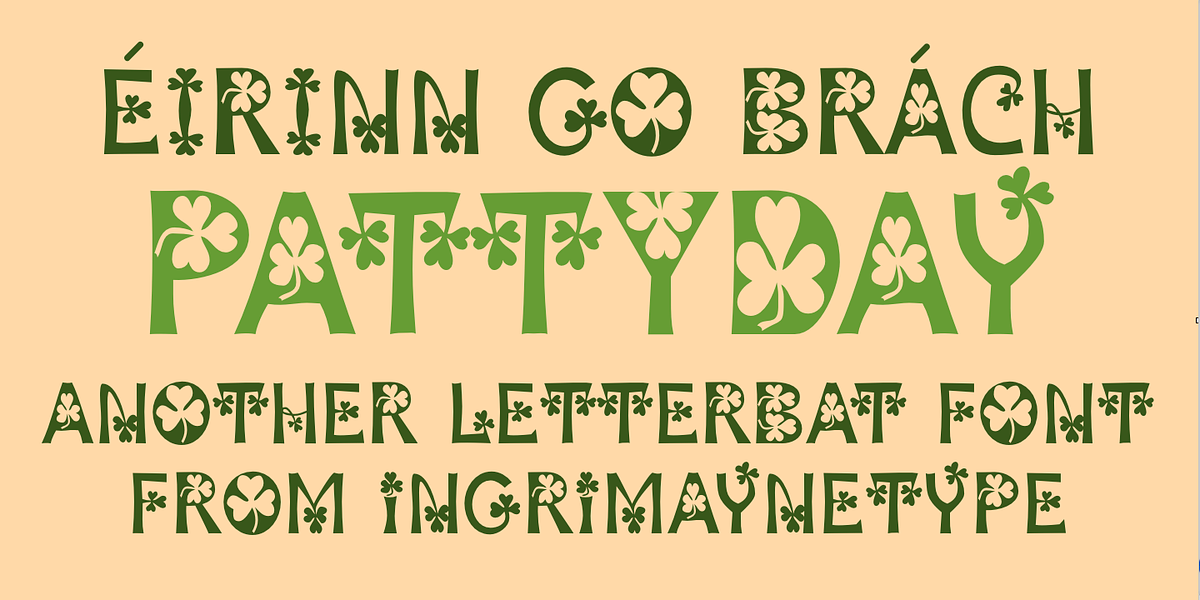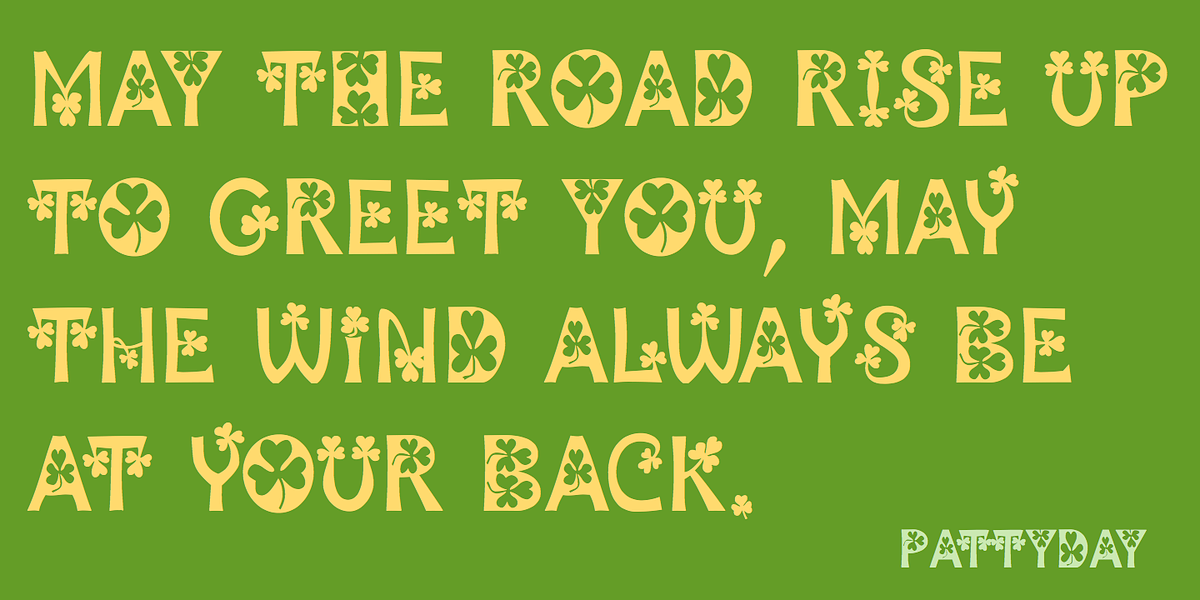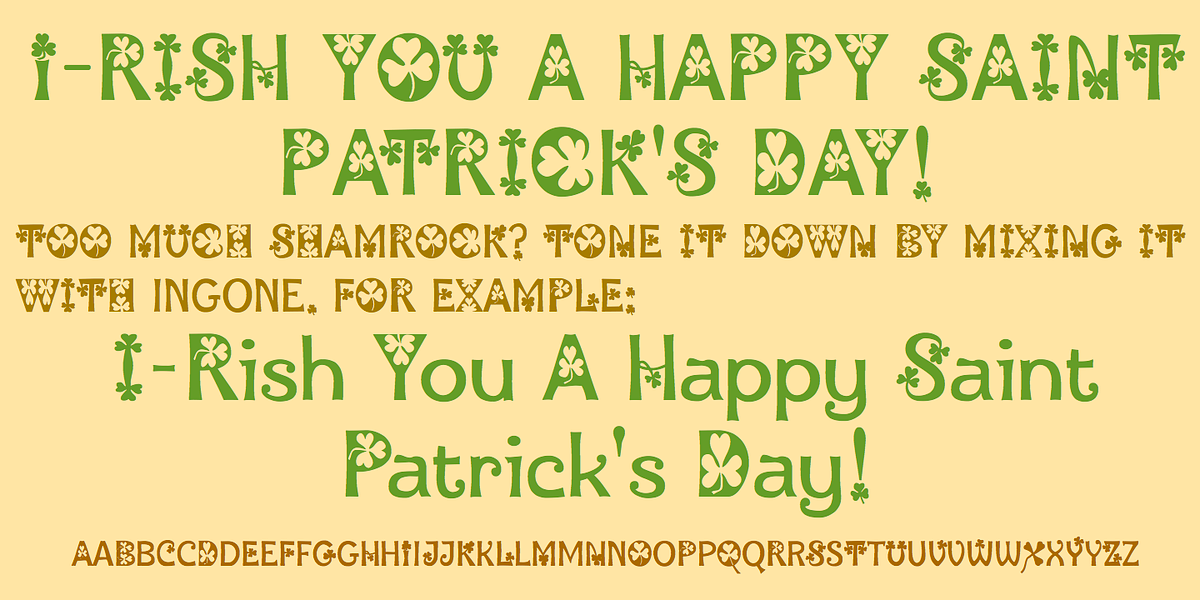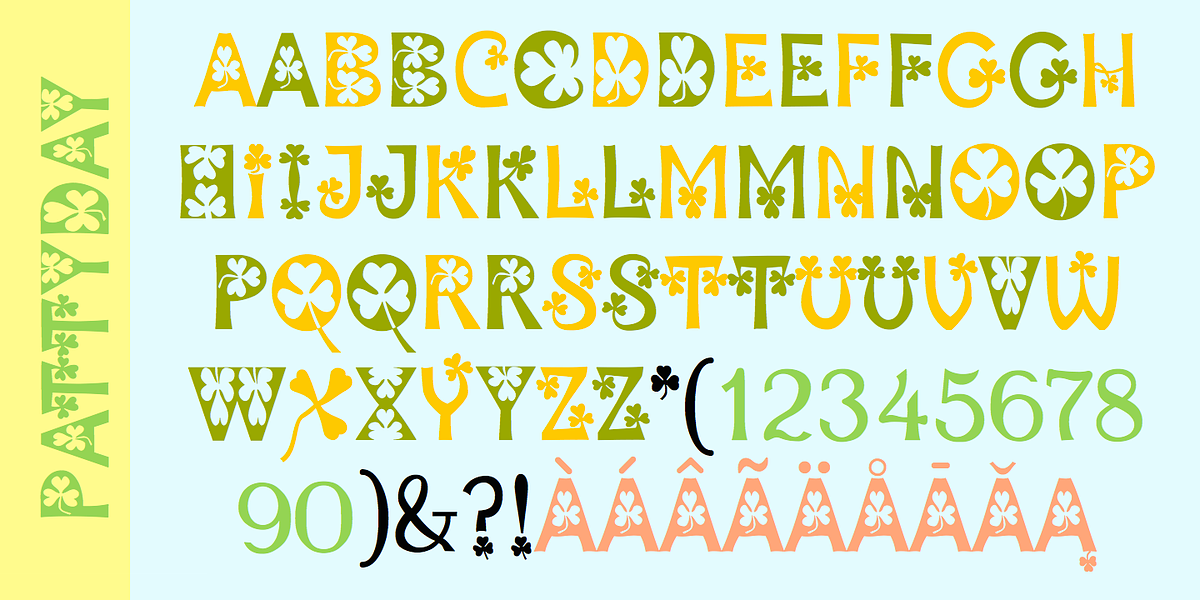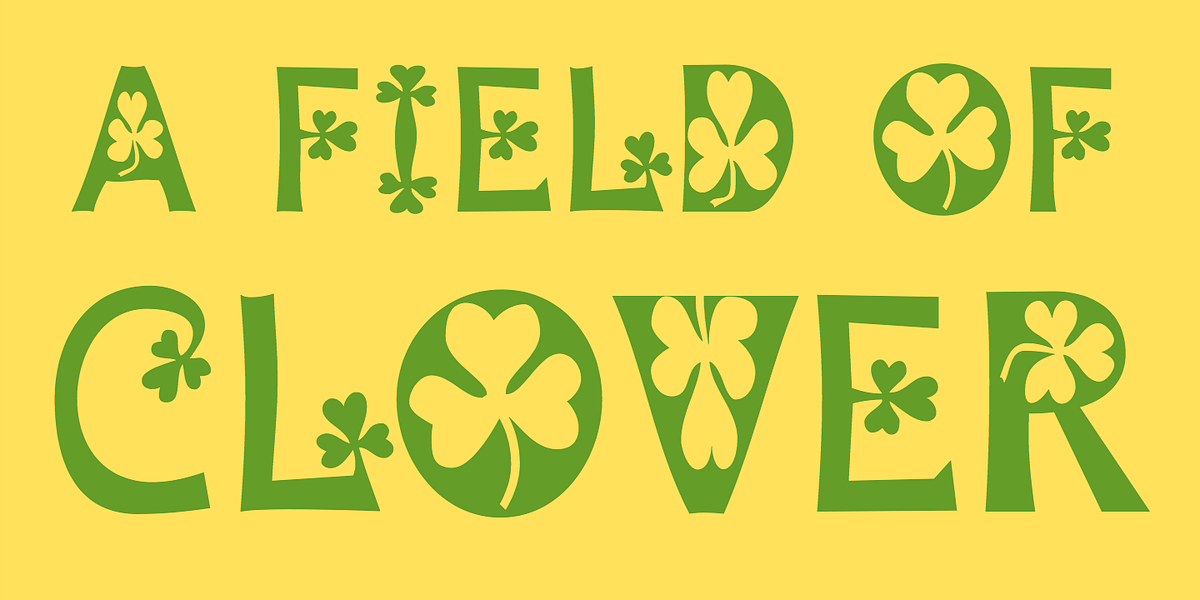
PattyDay
PattyDay is a caps-only display typeface characterized by its playful shamrock decorations. Not all lowercase letters are unique from their uppercase counterparts. For a version without the shamrocks, consider Ingone.